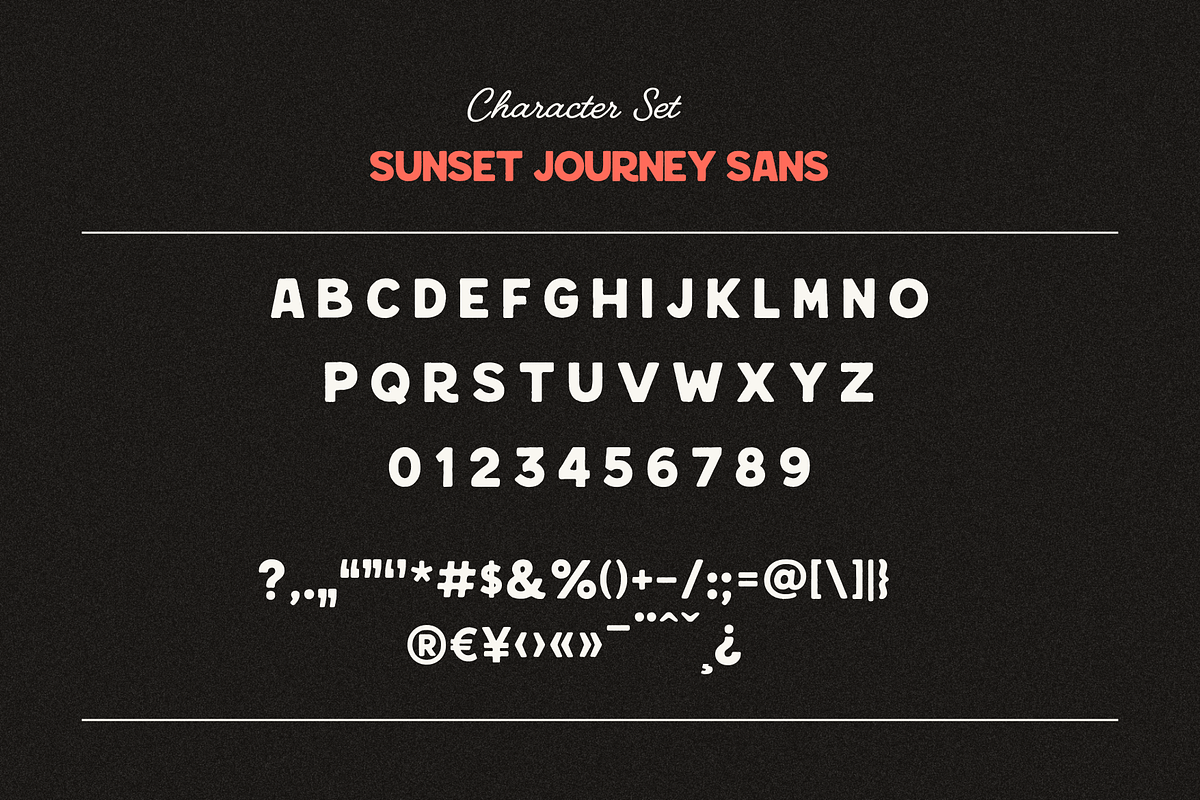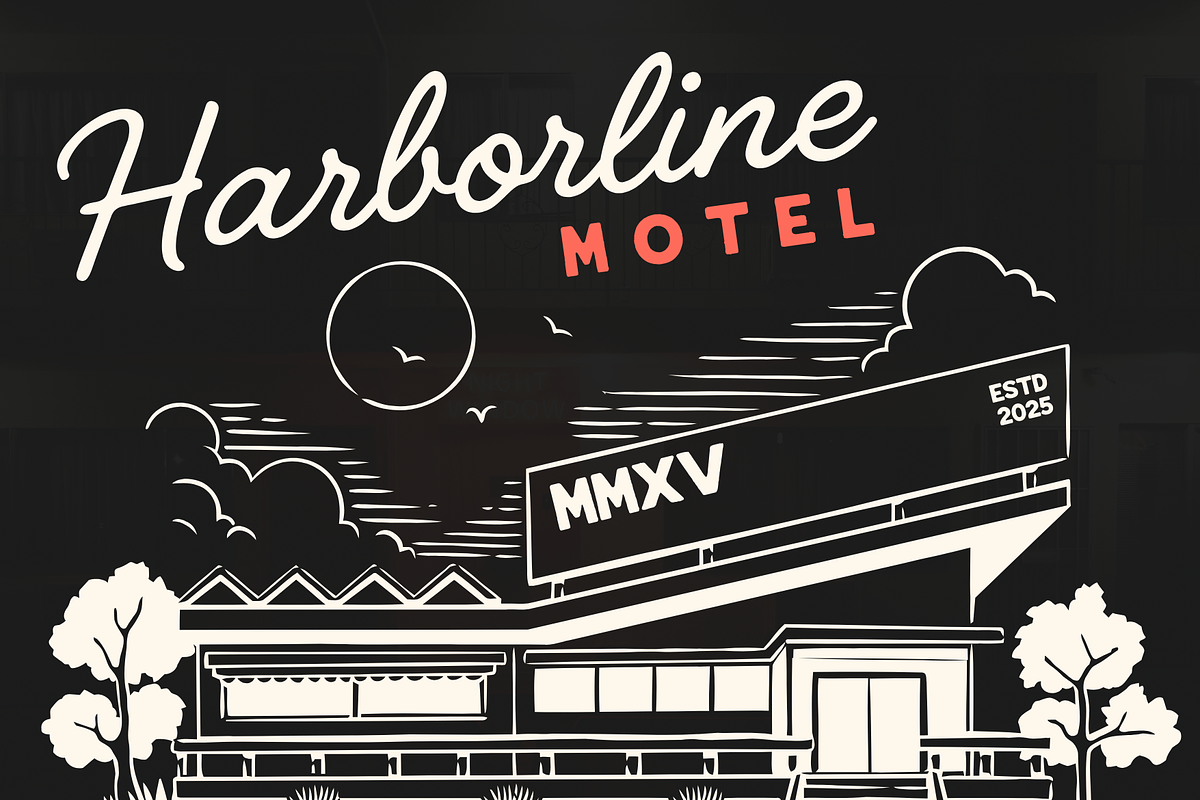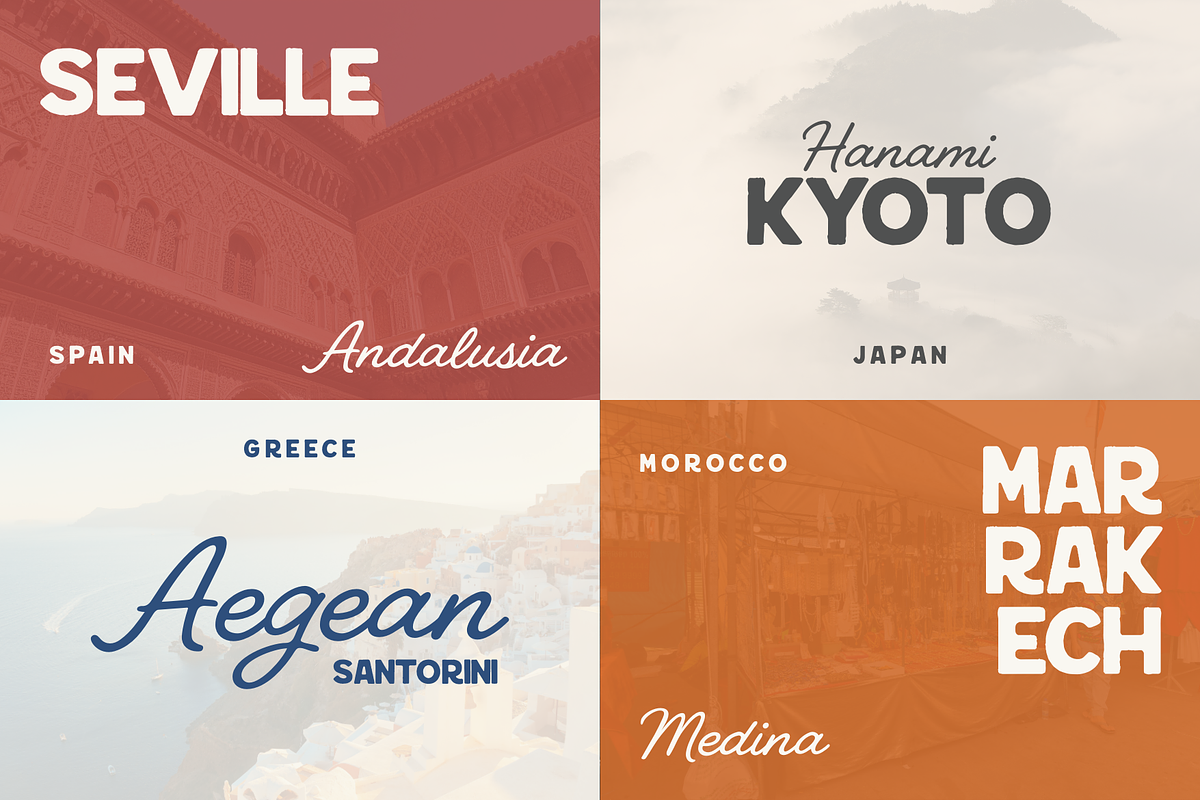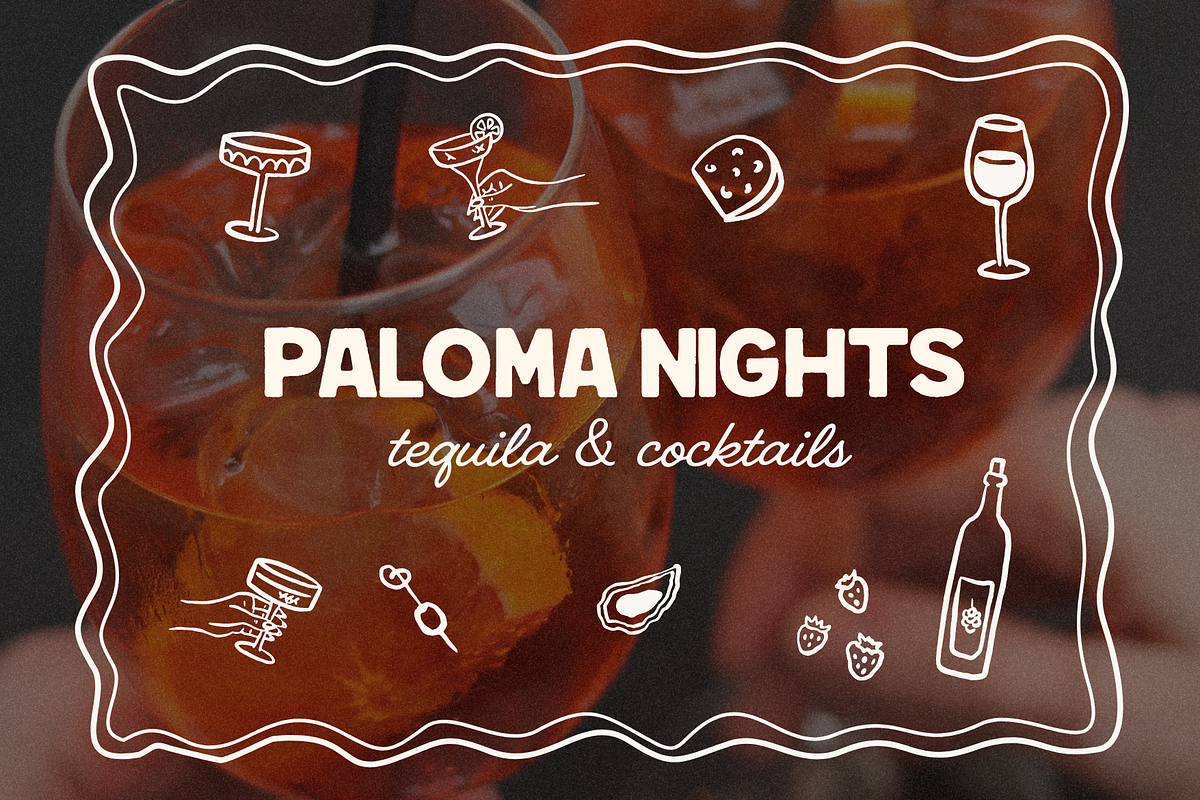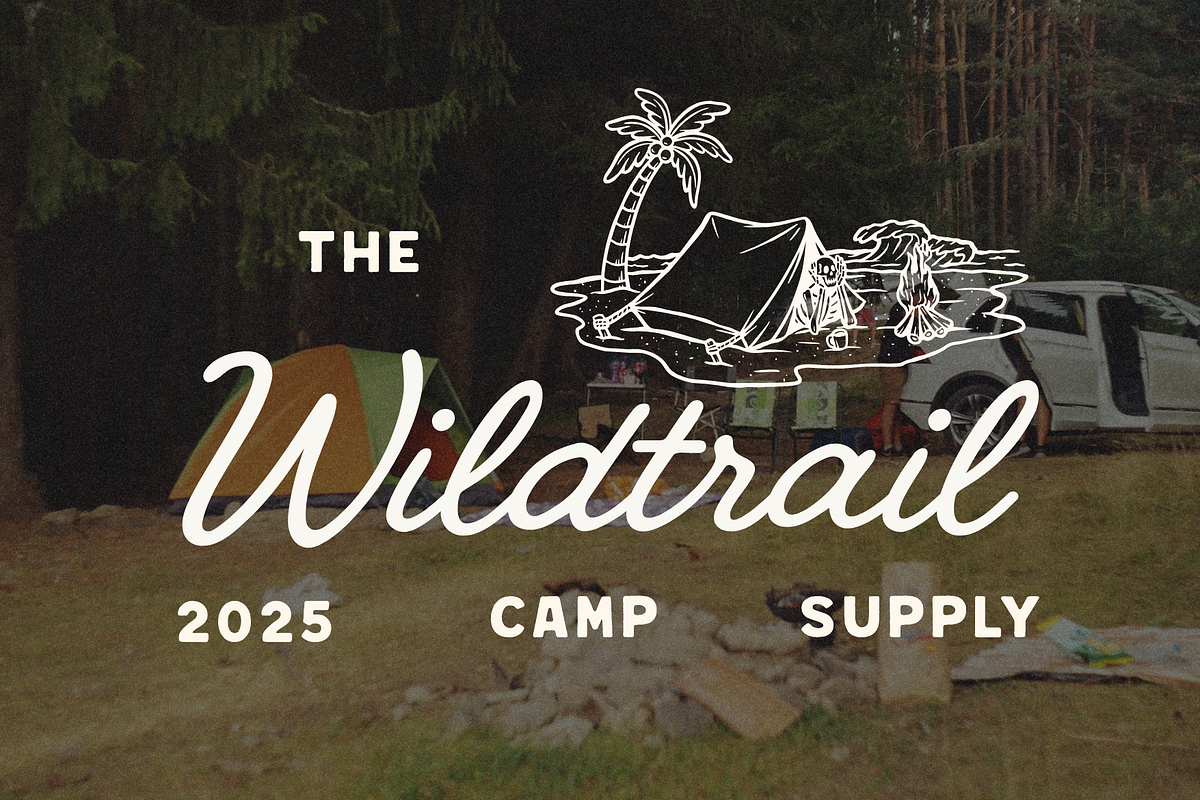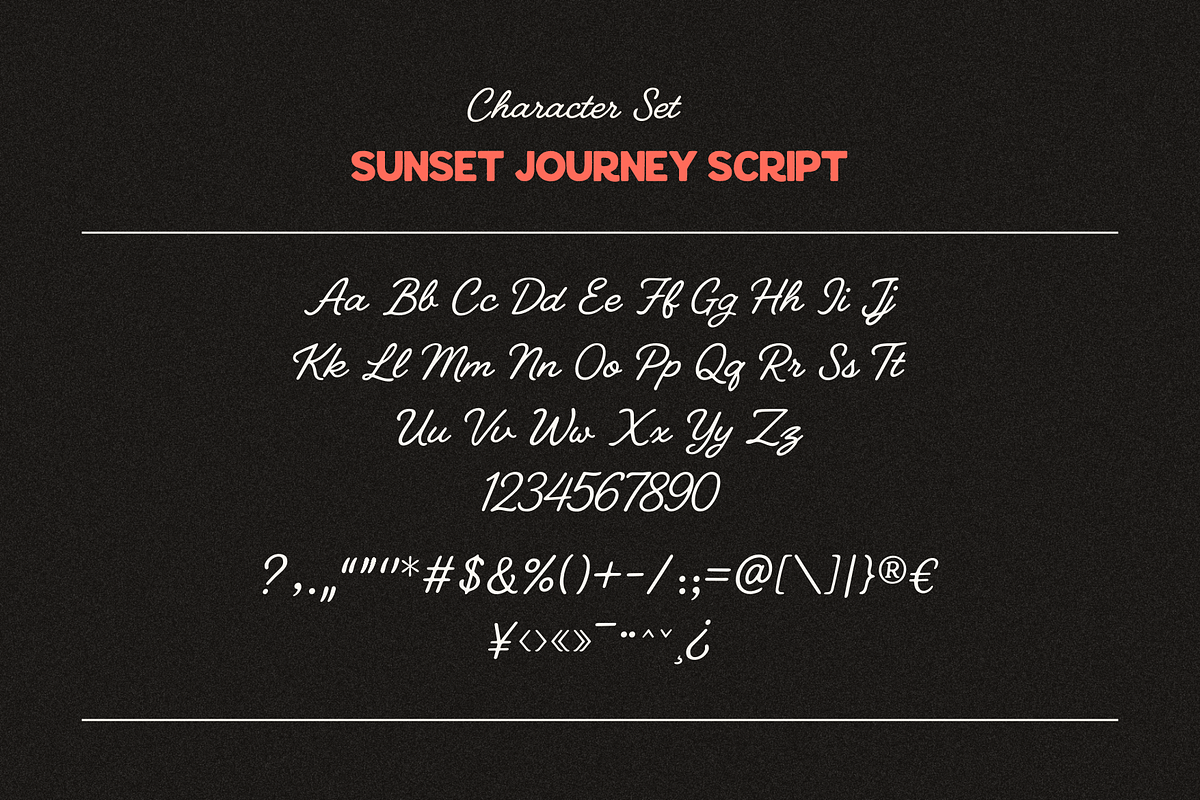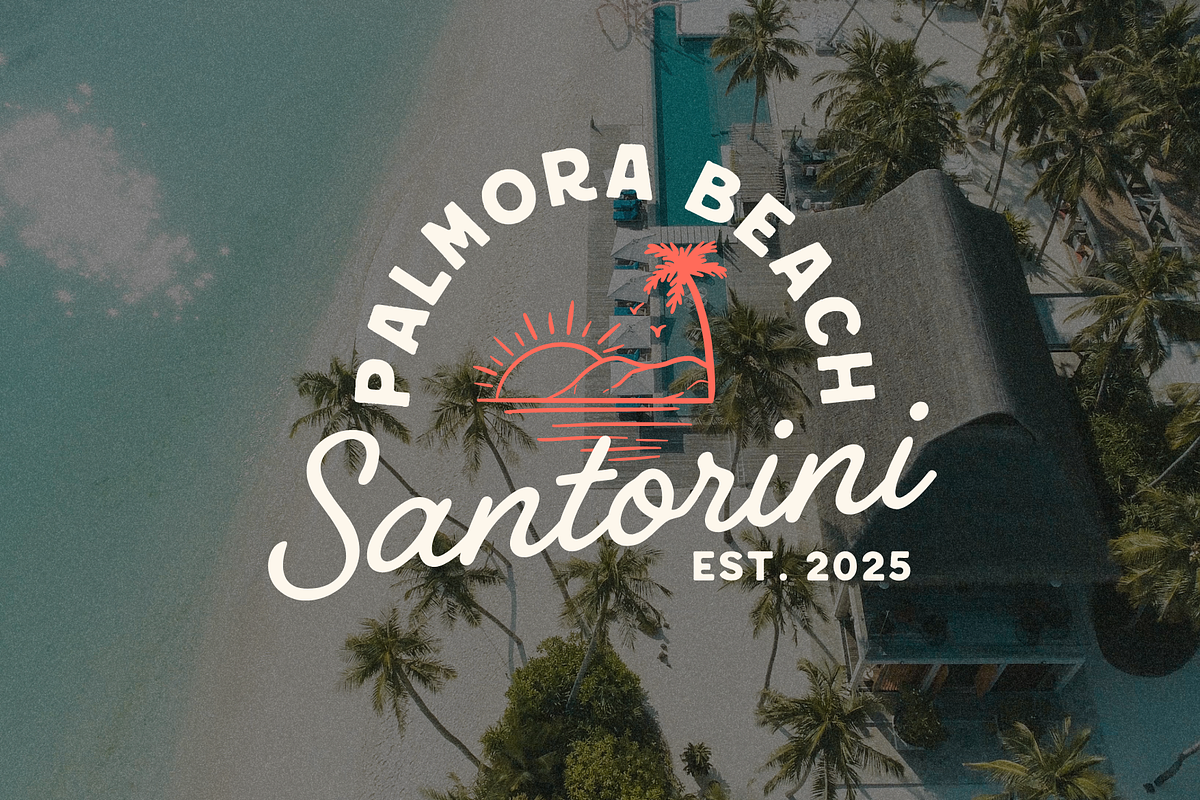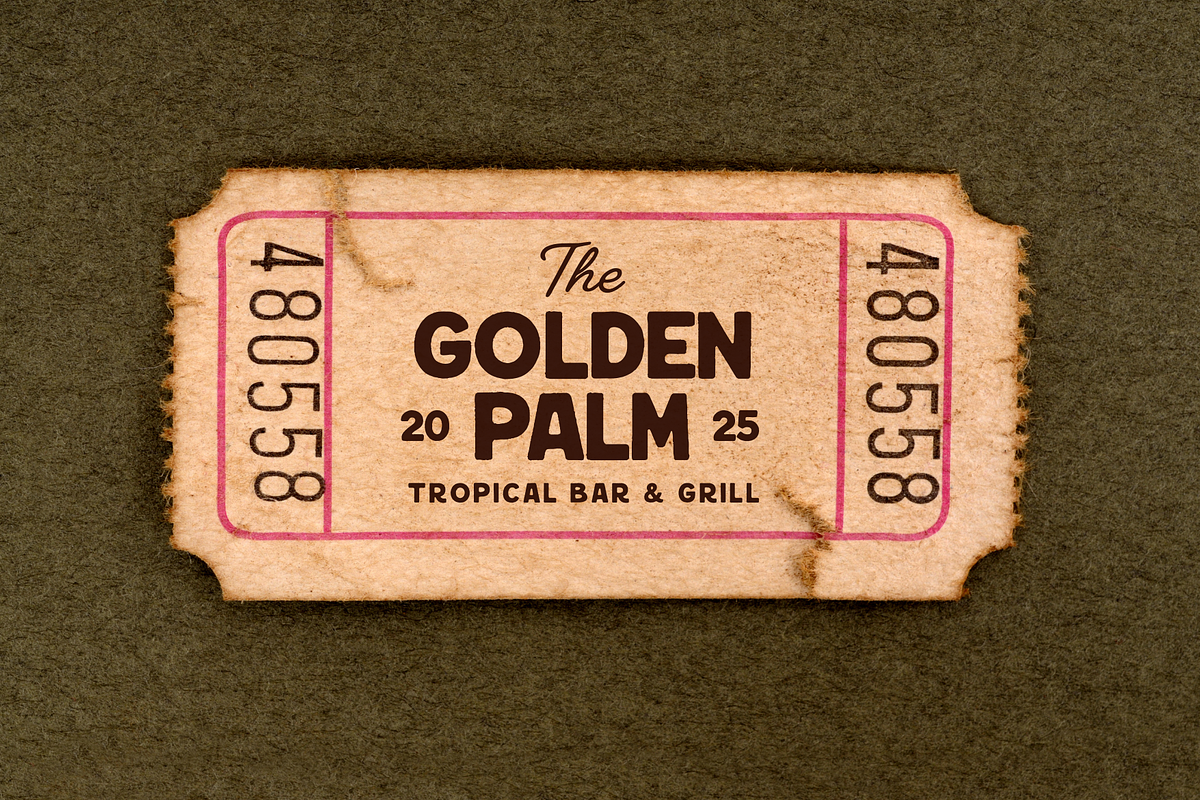
Sunset Journey – Sans & Script Duo
Sunset Journey is a handcrafted font duo that combines bold sans serif charm with elegant handwritten script. Inspired by sunsets, road trips, and timeless adventures, this pair brings a warm nostalgic touch to your creative projects.
From vintage-inspired logos to tropical bar menus, from retro travel posters to lifestyle branding, Sunset Journey is crafted to give your design a bold yet relaxed personality.
Use the Sans for strong headlines and pair it with the Script for an effortless handwritten accent. Together, they create the perfect balance of modern playfulness and retro charm.
- Two fonts included: Sunset Journey Sans & Sunset Journey Script
- Smooth pairing for branding, posters, logos, packaging & more